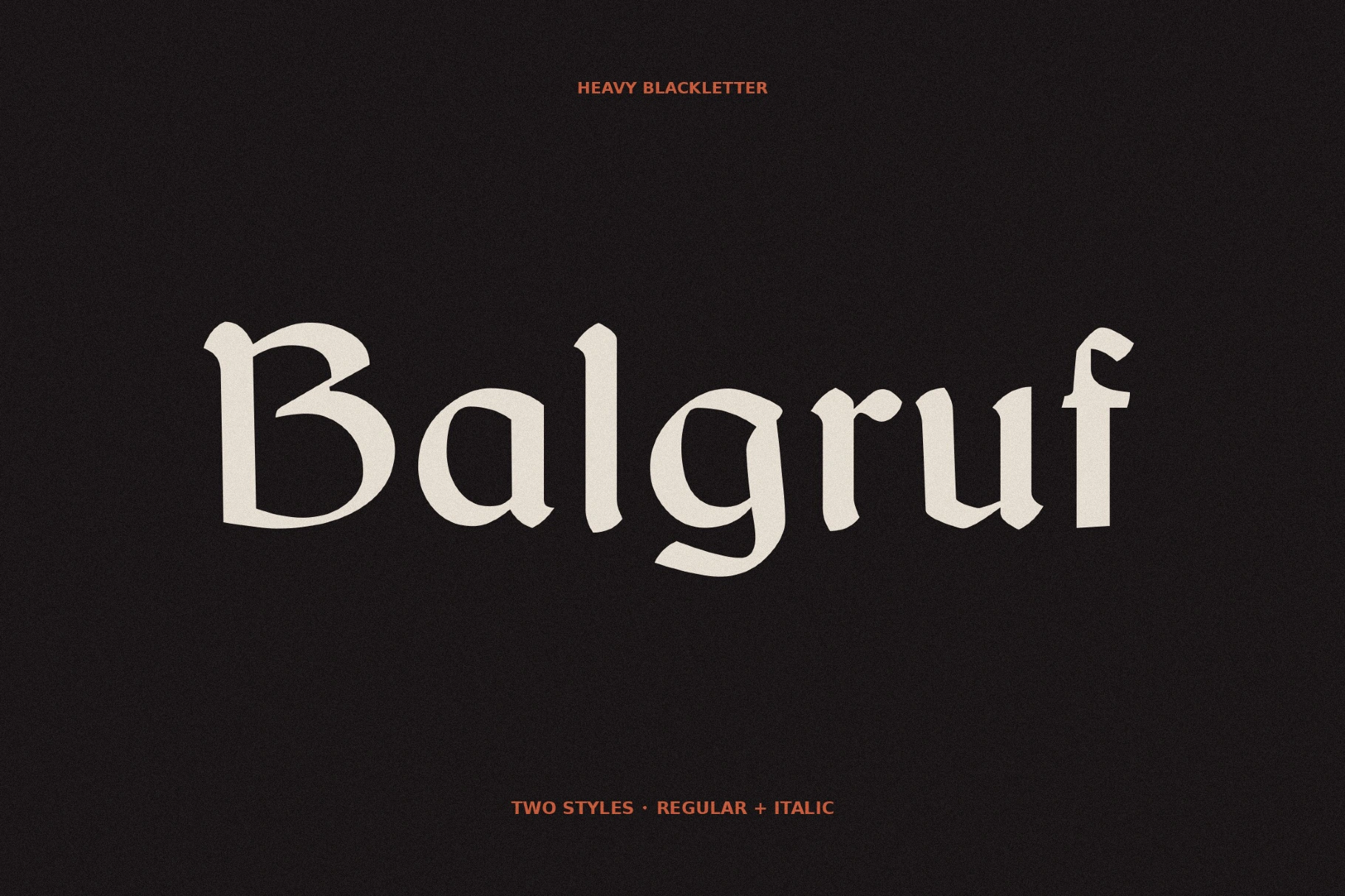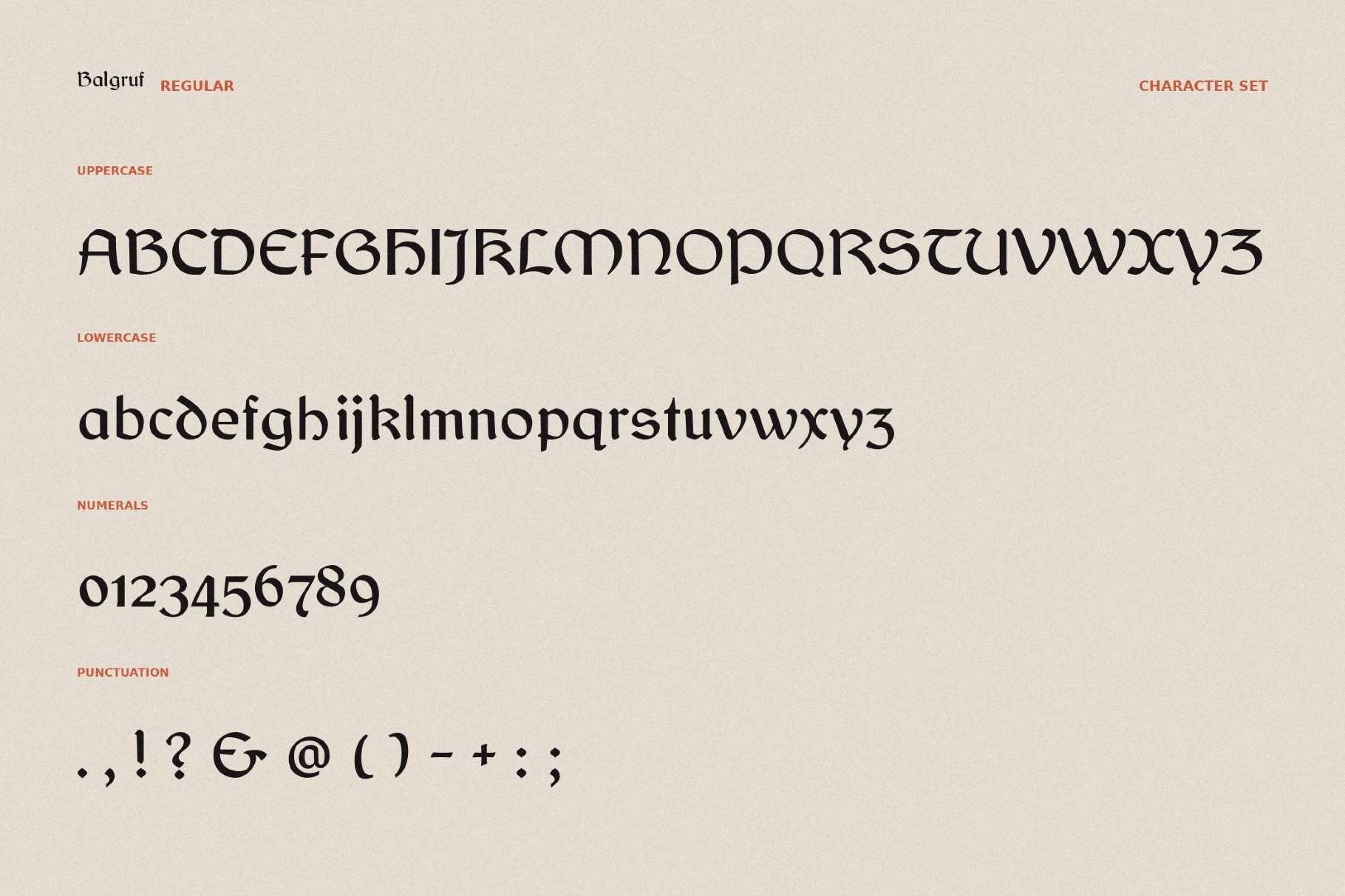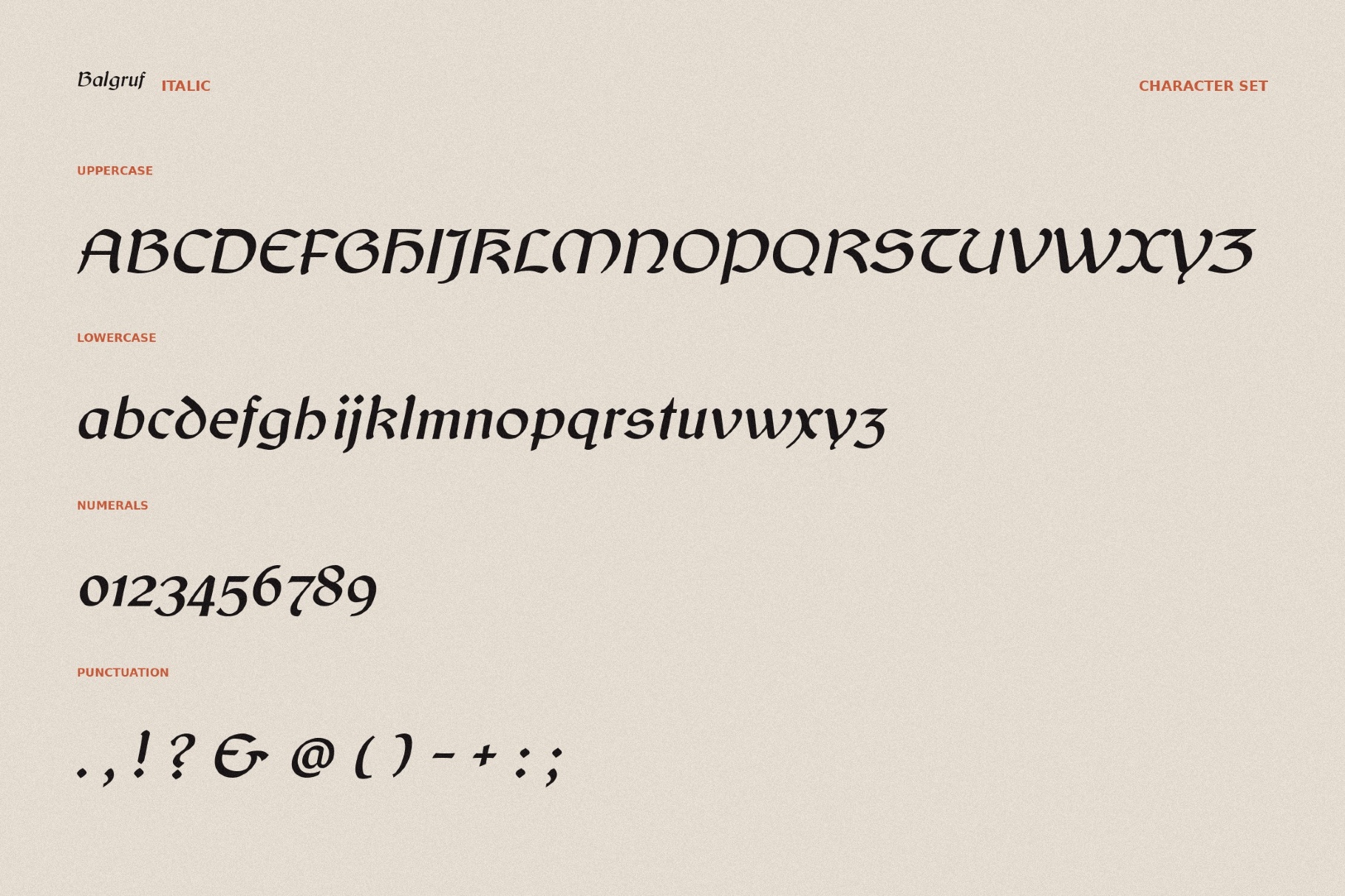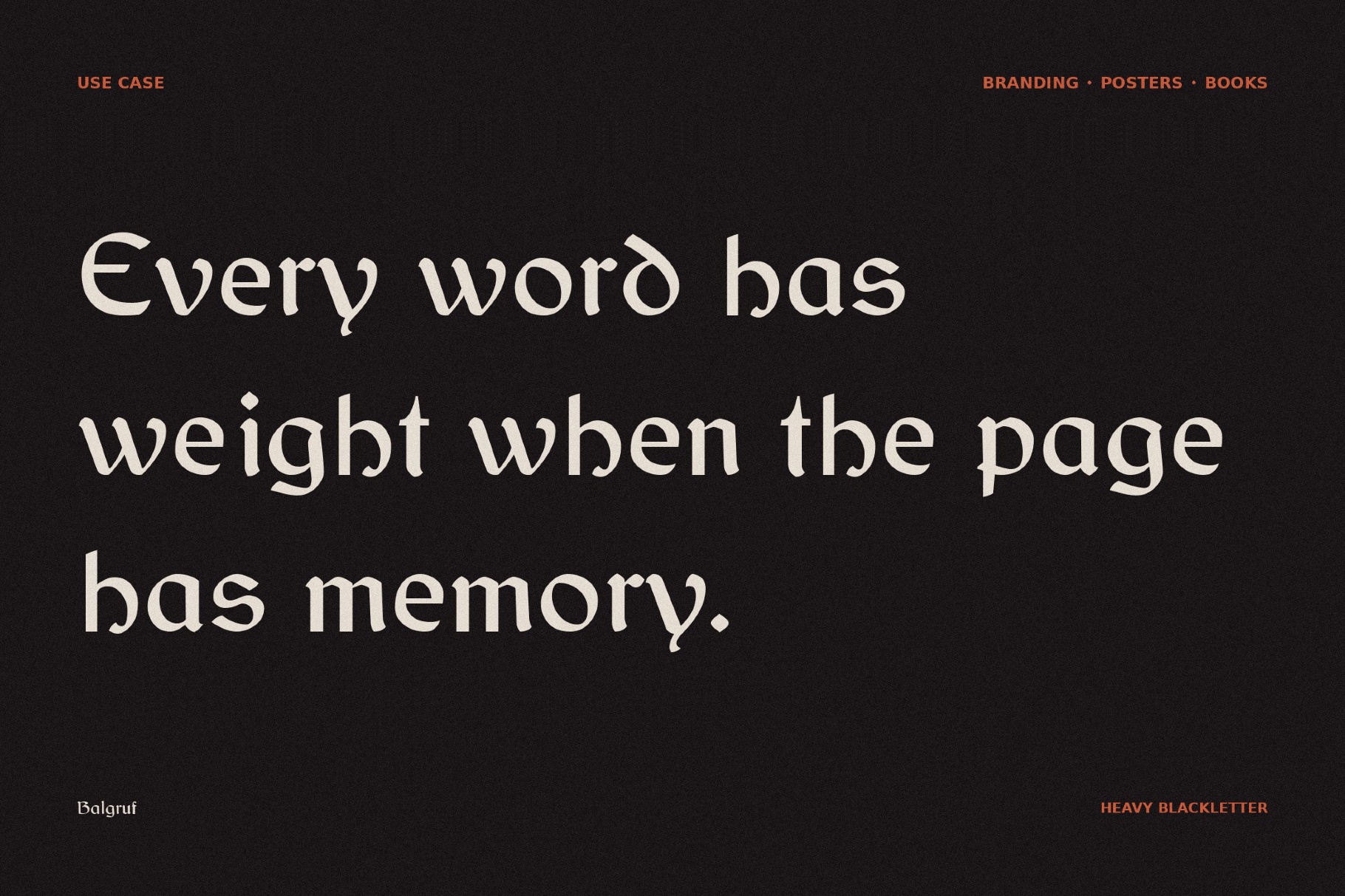
Balgruf - Fantasy Book Font
Balgruf
Balgruf has the weight that belongs on a quest menu, a mead hall sign, or a book cover featuring someone carrying an ancestral sword. Its medieval serif structure is shaped by sturdy calligraphic curves, firm vertical rhythm, and rugged display details that suggest Nordic court lettering and fantasy tavern typography.
The font is strongly influenced by Skyrim lore, so it works well for role-playing game titles, fantasy publishing, brewery labels, quest maps, festival posters, cinematic menus, tabletop campaign materials, and brand identities.
- two styles: Regular and Italic;
- uppercase and lowercase letters;
- numbers, punctuation, dingbats, and symbols;
- multilingual support across the extended Latin script;
- ligatures and stylistic alternatives.